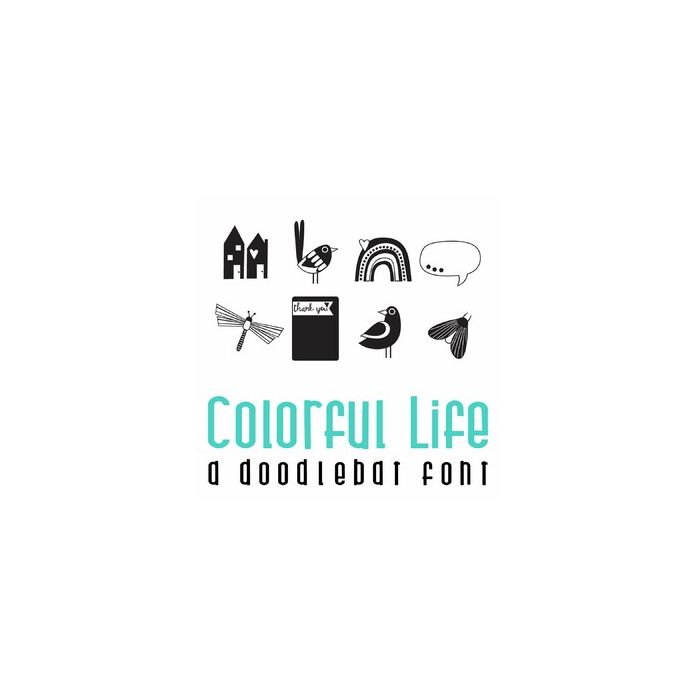
This fun doodlebat features fun spring imagery, project life cards, phrases and more! Perfect for scrap book pages, planner stickers, decor, card making and gifts!